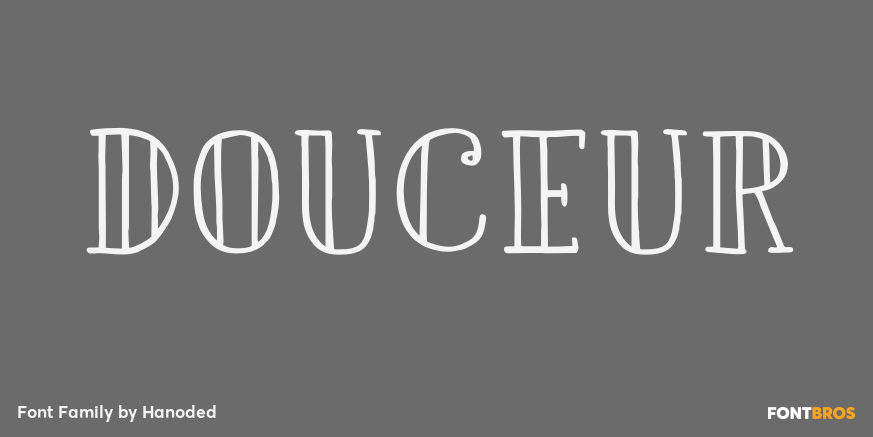
Douceur
About Douceur
Douceur (pleasantness in French) is an all caps, serif typeface with a flourish. It was created by hand in one go: no sketches, no try-outs. The font comes in two styles: regular (outlined) and black. Due to style naming issues, the black version will…